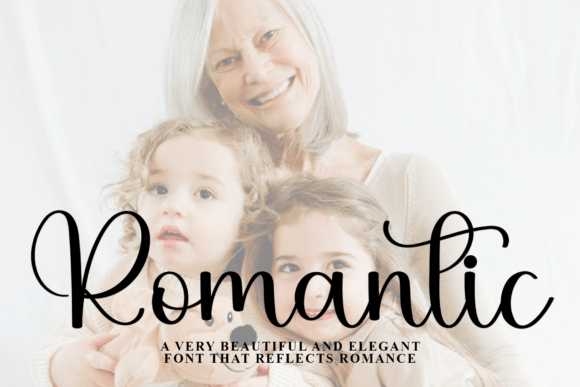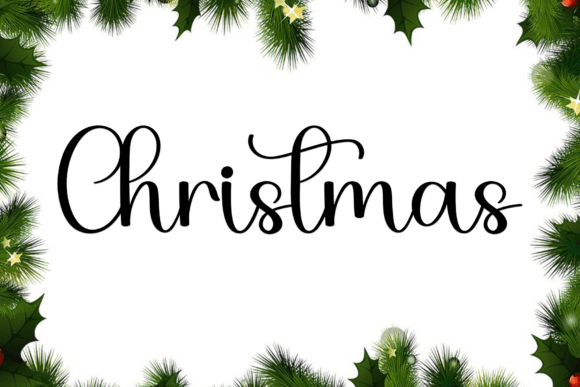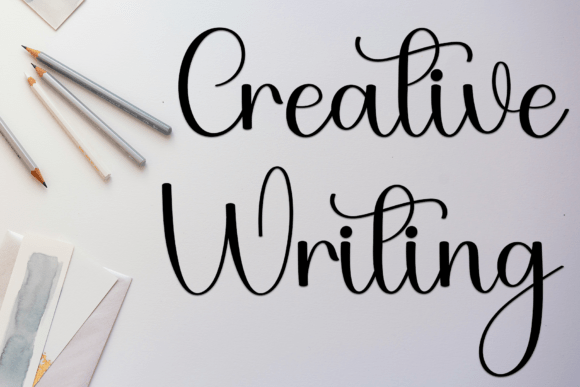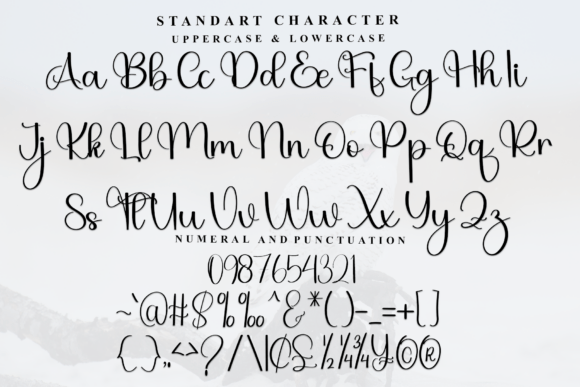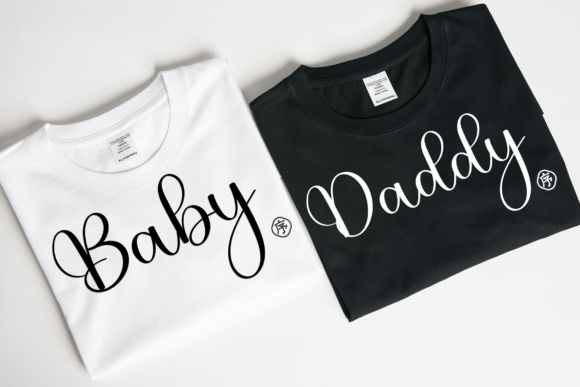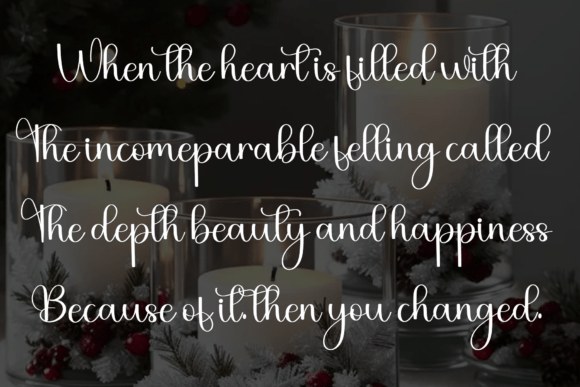
Daina Font: Elevate Your Designs with Elegance and Charm
In the world of typography, few fonts manage to capture the essence of elegance and charm as effortlessly as Daina. This stylish handwritten script font is a masterpiece of design, boasting fluid, graceful strokes that add a personal and sophisticated touch to any project. Whether you’re working on branding, invitations, stationery, or any other design endeavor, Daina is the perfect choice for those seeking a timeless, refined look.
The Characteristics of Daina Font
Daina’s beauty lies in its smooth curves and natural flow, which create a sense of movement and fluidity. The font’s handwritten nature gives it a personal, human touch that sets it apart from more traditional typefaces. The strokes are carefully crafted to exude a sense of elegance, making Daina an excellent choice for designs that require a level of sophistication.
Perfect for Branding
When it comes to branding, the right font can make all the difference. Daina’s unique charm and elegance make it an excellent choice for businesses looking to establish a refined and luxurious identity. The font’s versatility allows it to be used across various platforms, from logos and business cards to packaging and website headers. By incorporating Daina into your brand’s typography, you can instantly elevate your visual identity and convey a sense of high-end quality.
Invitations and Stationery
Daina is also an excellent choice for designers and crafters working on invitations, stationery, and other paper goods. The font’s elegant, cursive strokes add a touch of sophistication to any design, making it perfect for:
• Event invitations and programs
• Personalized stationery and letterheads
• Greeting cards and gift tags
Why Choose Daina Font?
So, what sets Daina apart from other script fonts on the market? Here are just a few reasons why designers and crafters love working with Daina:
• Elegance and charm: Daina’s fluid strokes and natural flow create a sense of elegance and charm that’s hard to find in other fonts.
• Versatility: Daina is suitable for a wide range of design projects, from branding and invitations to stationery and packaging.
• Timeless appeal: Unlike trendy fonts that quickly go out of style, Daina’s classic, refined look ensures it will remain a popular choice for years to come.
• Easy to read: Despite its elegant, cursive nature, Daina is surprisingly easy to read, making it perfect for body text and headlines.
Tips for Using Daina Font
To get the most out of Daina, here are a few tips to keep in mind:
• Pair with contrasting fonts: Combine Daina with a contrasting font to create visual interest and add depth to your design.
• Use for headlines and titles: Daina’s elegant strokes make it perfect for headlines and titles, but feel free to experiment with body text and other design elements.
• Experiment with colors and textures: Daina looks stunning in a range of colors and textures, so don’t be afraid to get creative and try out different effects.
Daina font is a true gem in the world of typography. Its elegant, charming strokes and timeless appeal make it the perfect choice for designers and crafters seeking to add a touch of sophistication to their projects. Whether you’re working on branding, invitations, stationery, or any other design endeavor, Daina is sure to elevate your designs and leave a lasting impression.